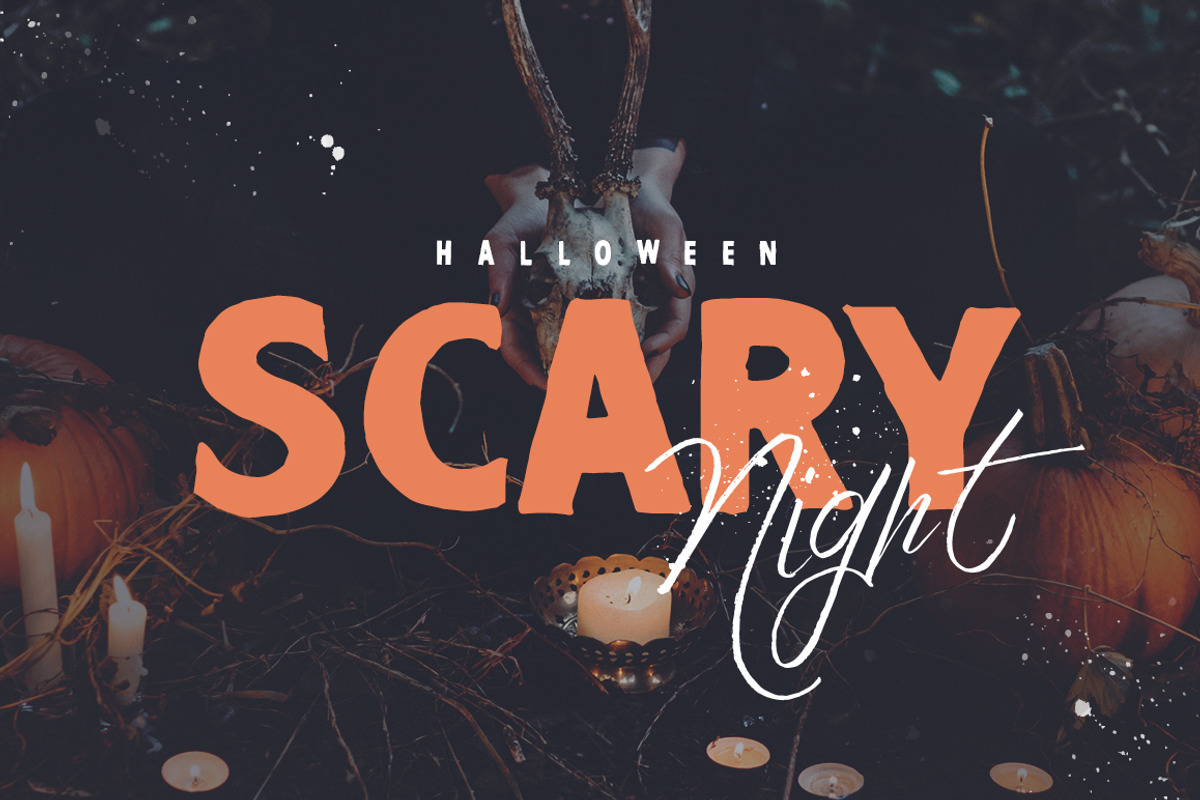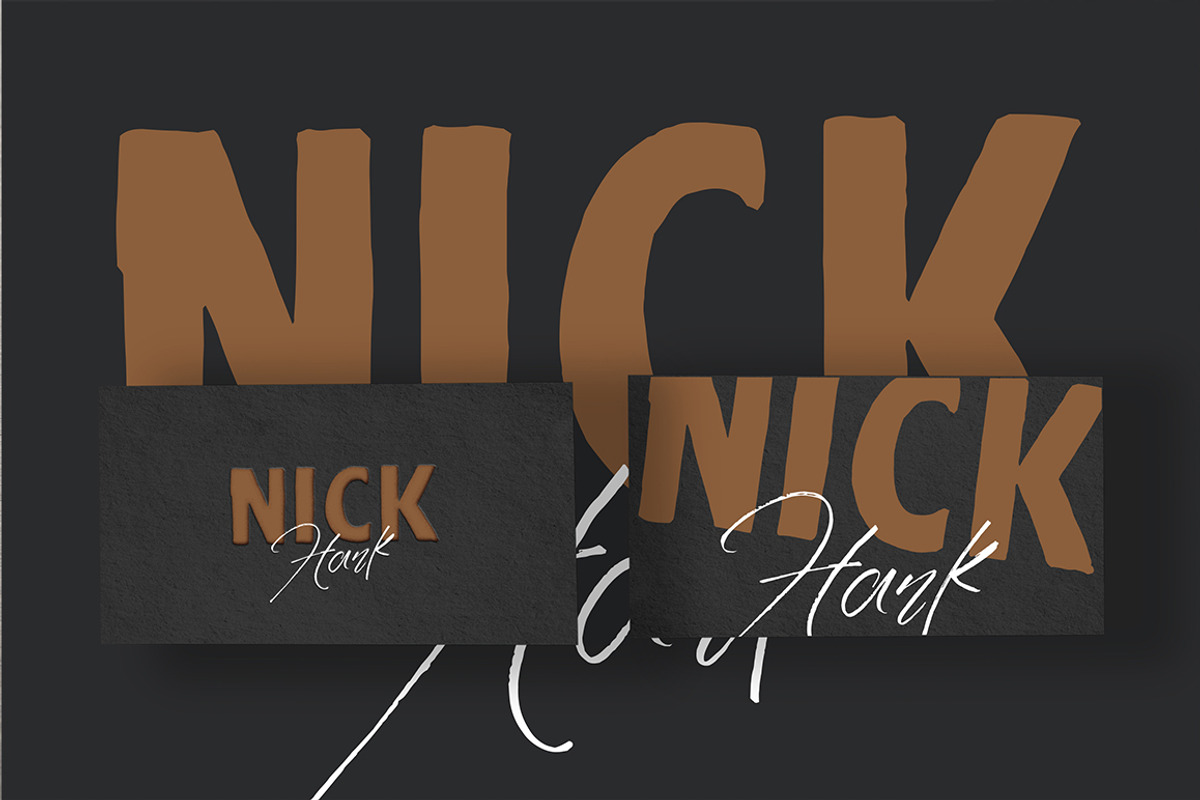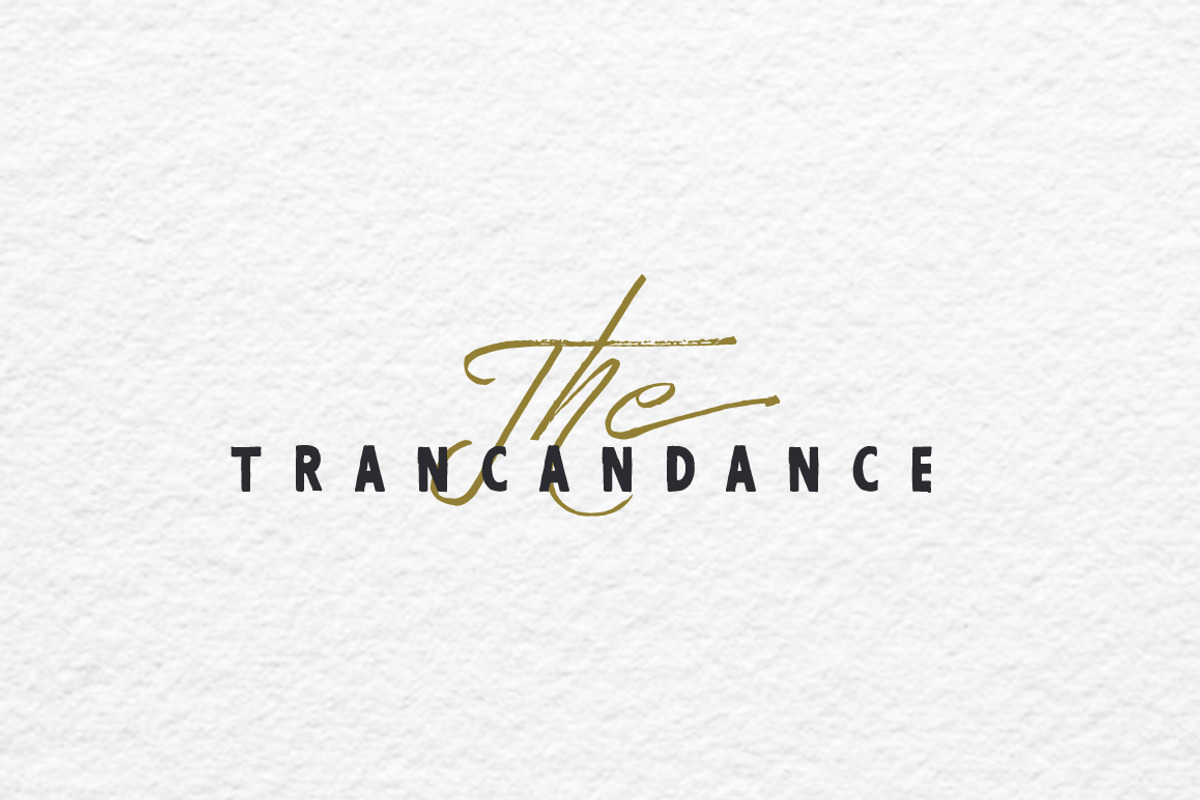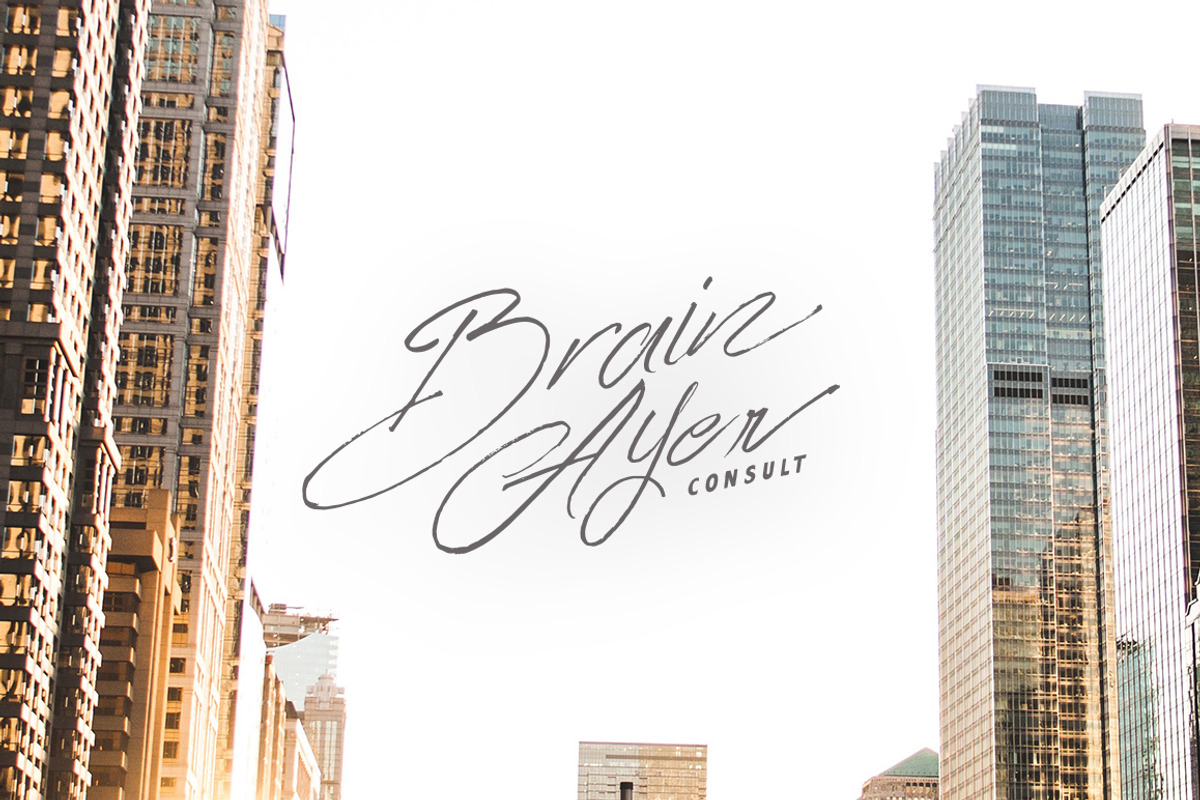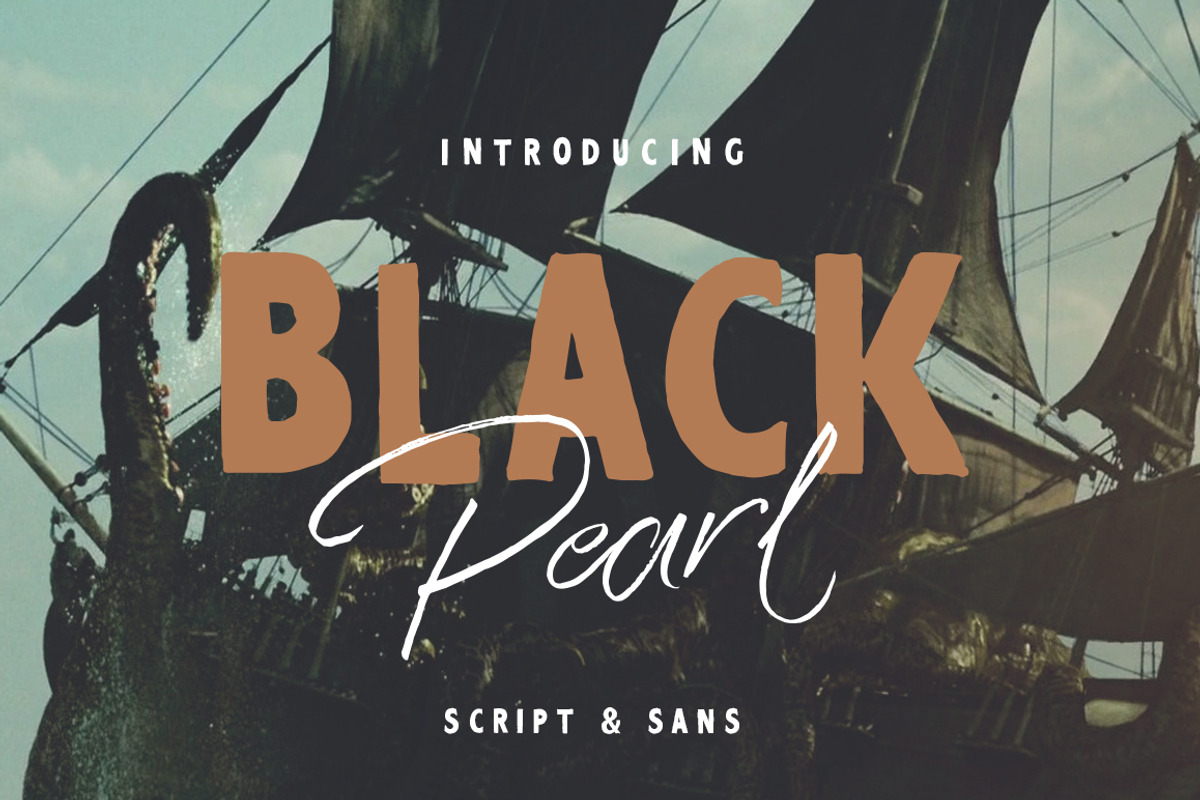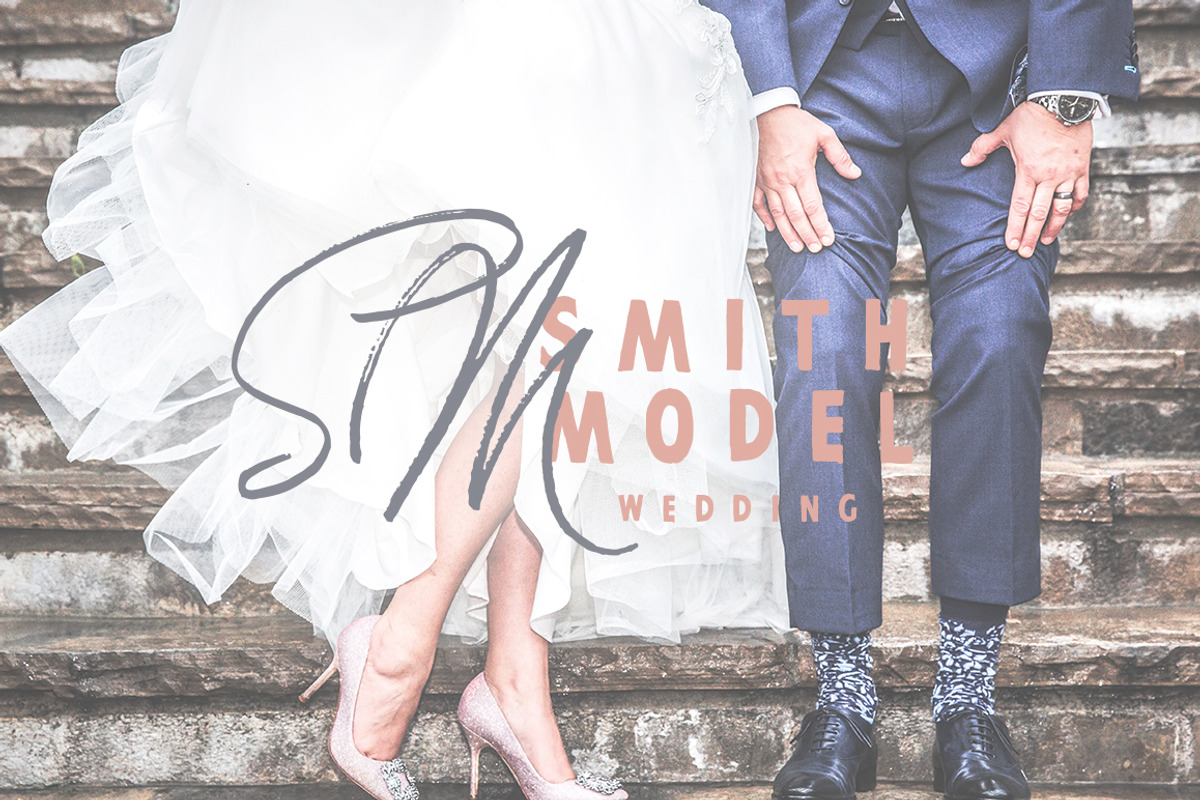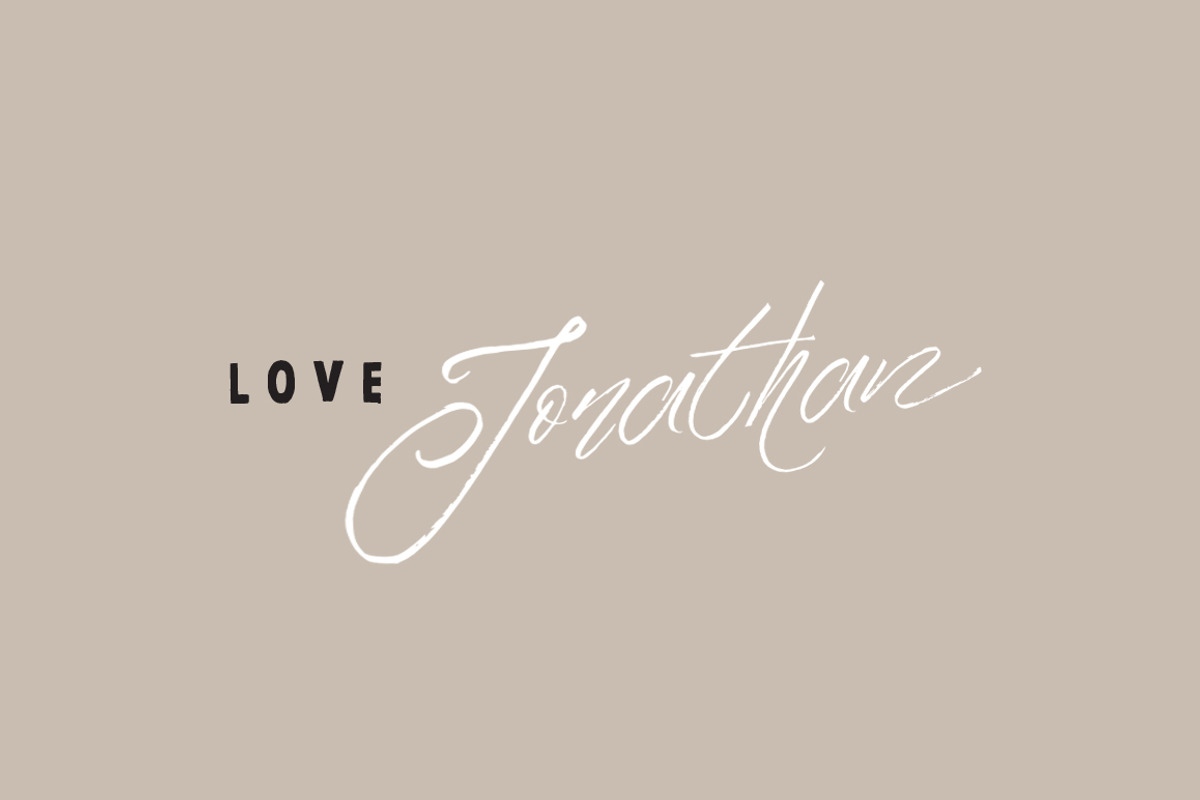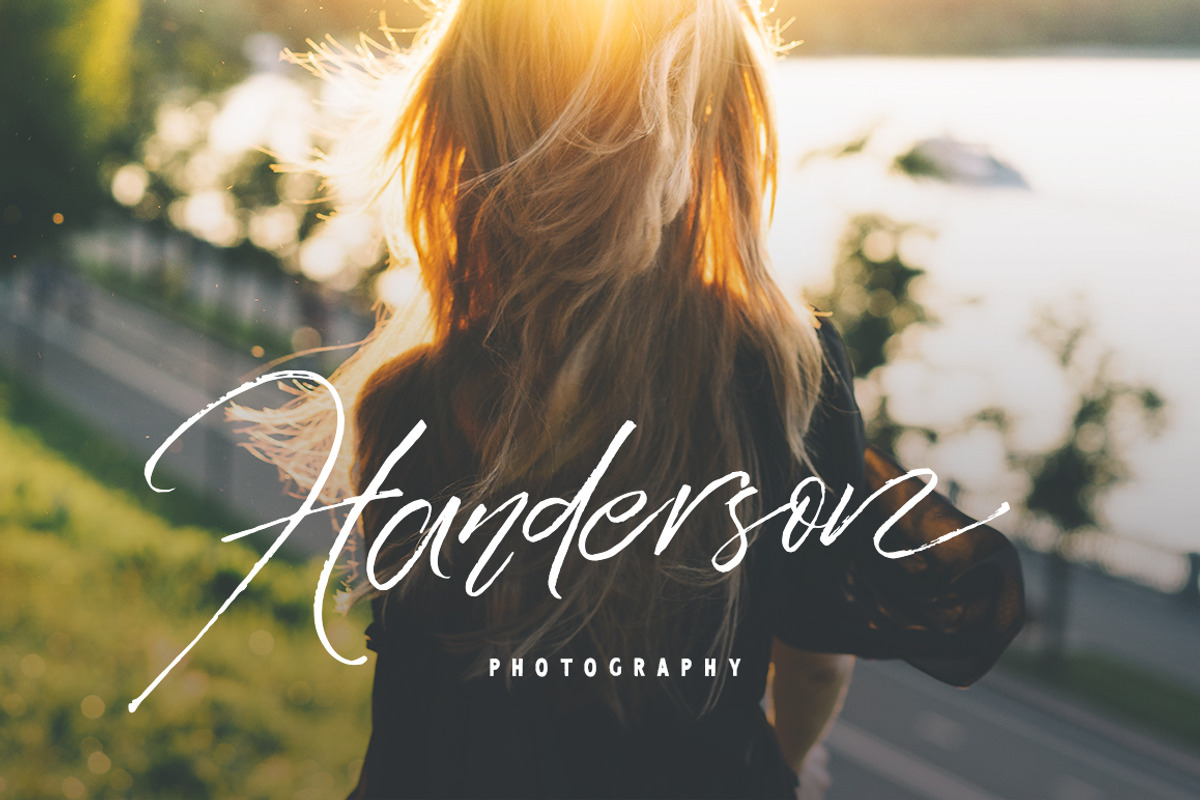
Black Pearl Font Duo + Extras
Black Pearl Font Duo + Extras by Dirtyline Studio is a font selected for branding, posters, packaging, typography.
- Black Pearl Sans : A Rough Sans.
- Basic Latin A-Z and a-z
- Stylistic Set
Why Black Pearl Font Duo + Extras is worth a look
Black Pearl Font Duo + Extras by Dirtyline Studio fits naturally into Branding, posters, packaging, typography.